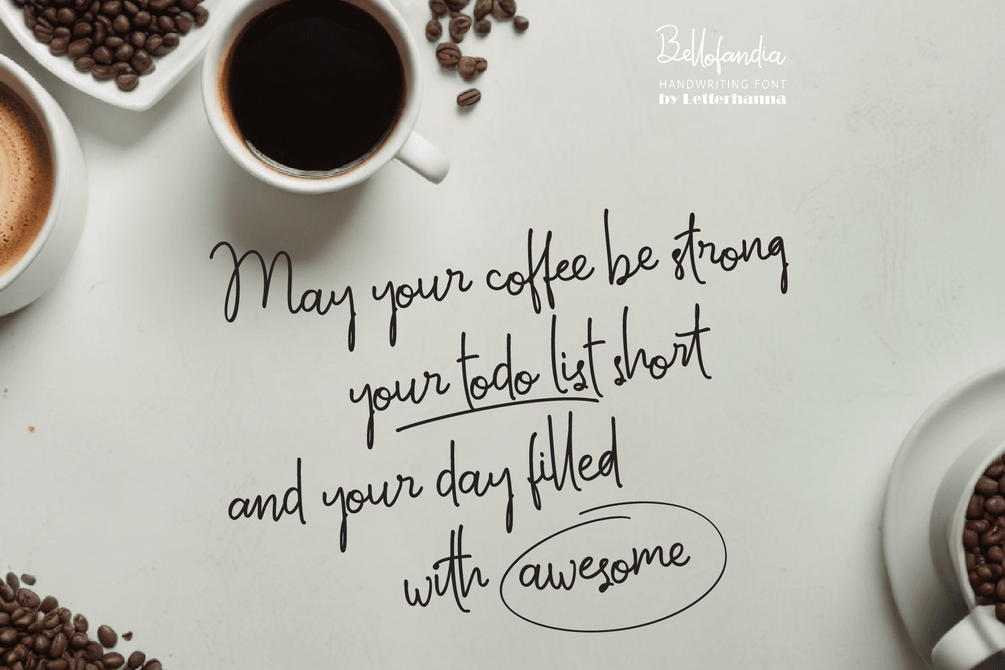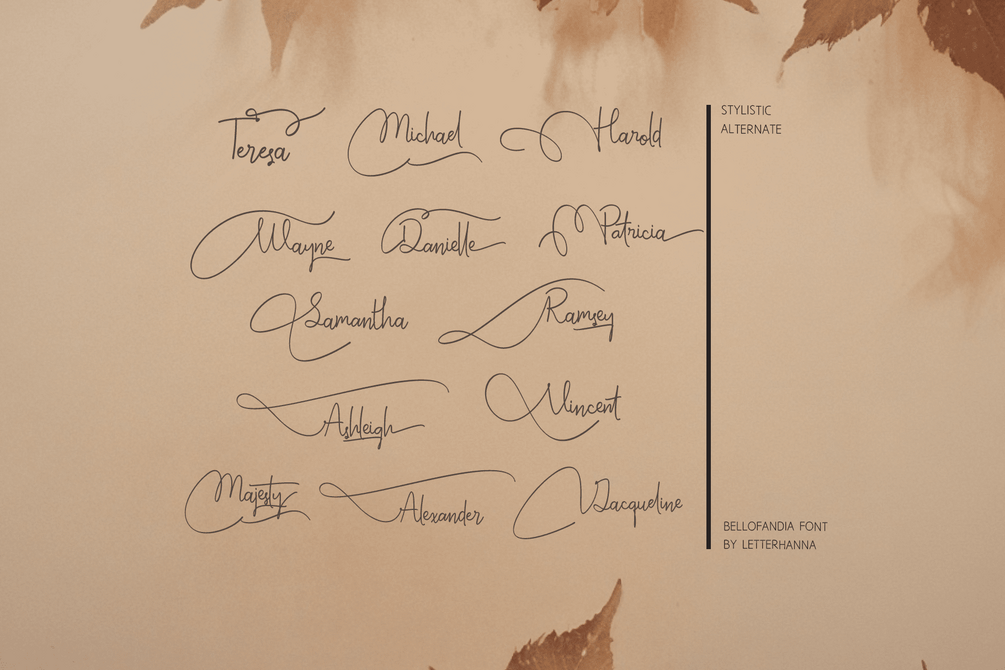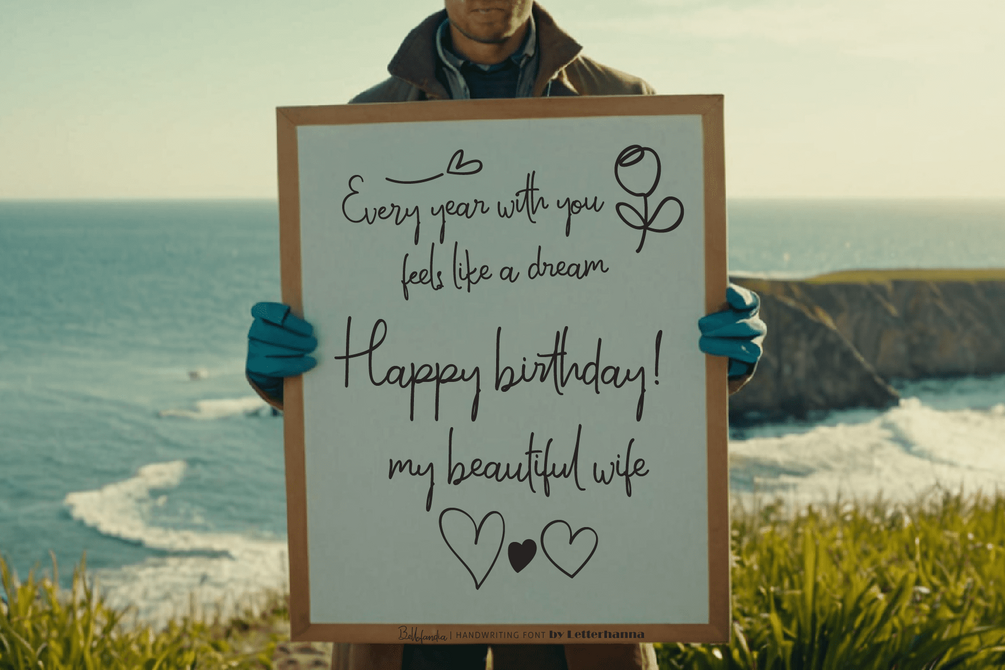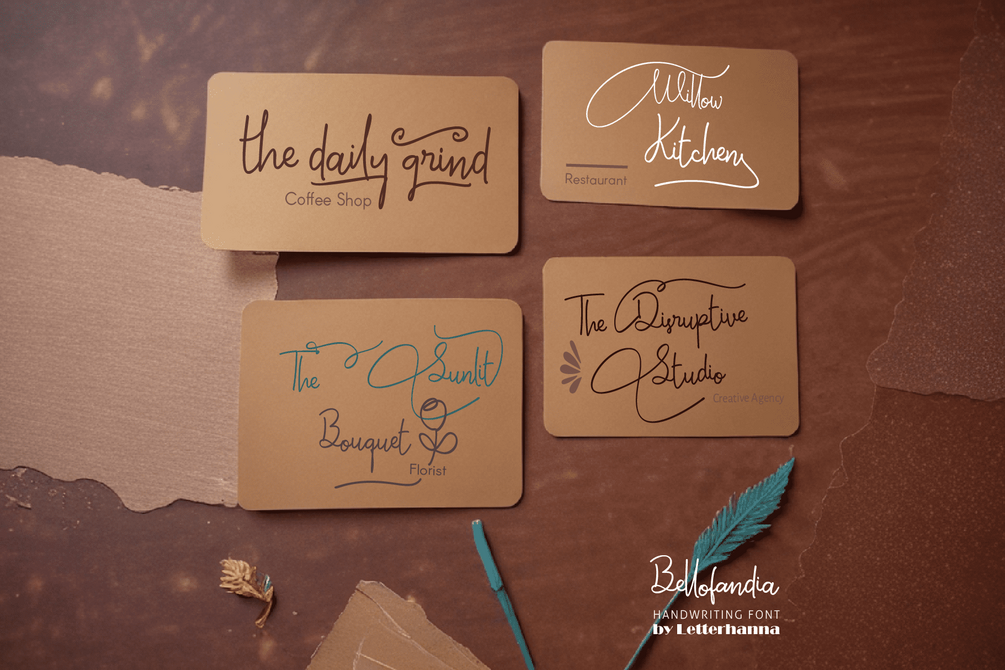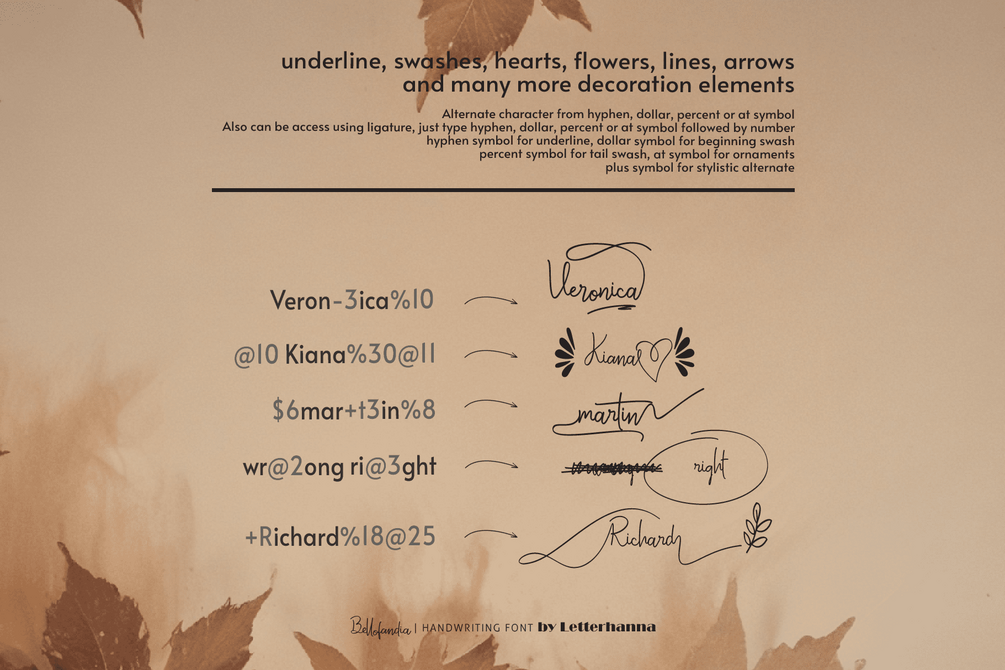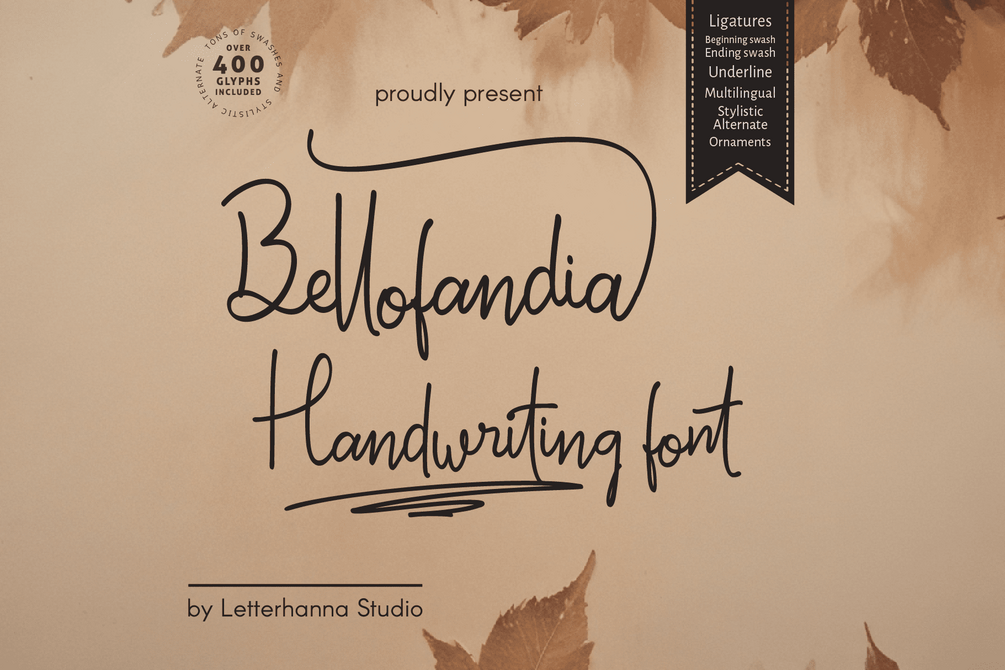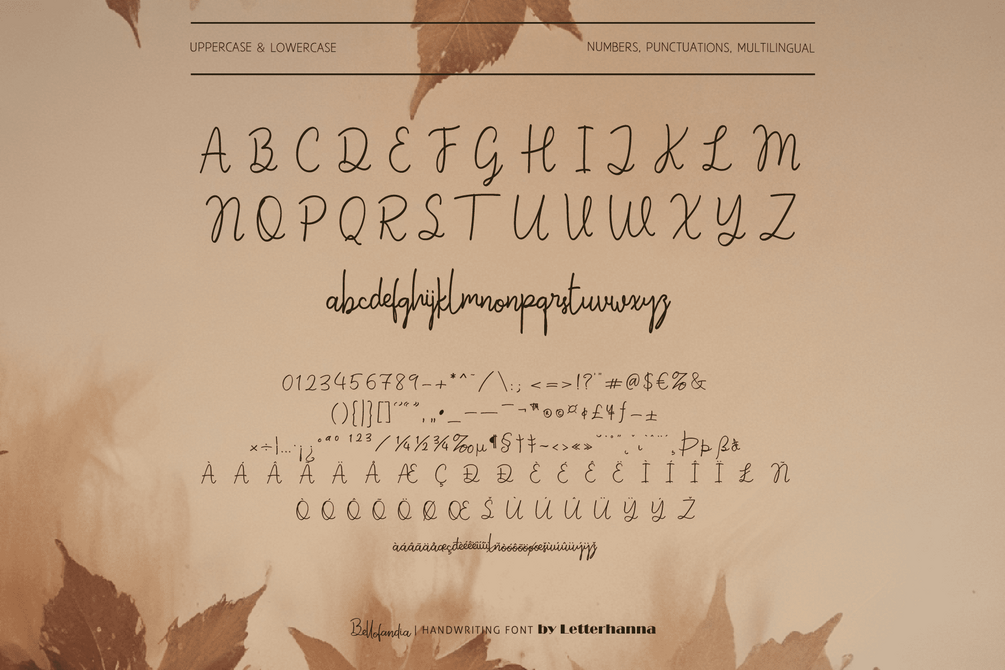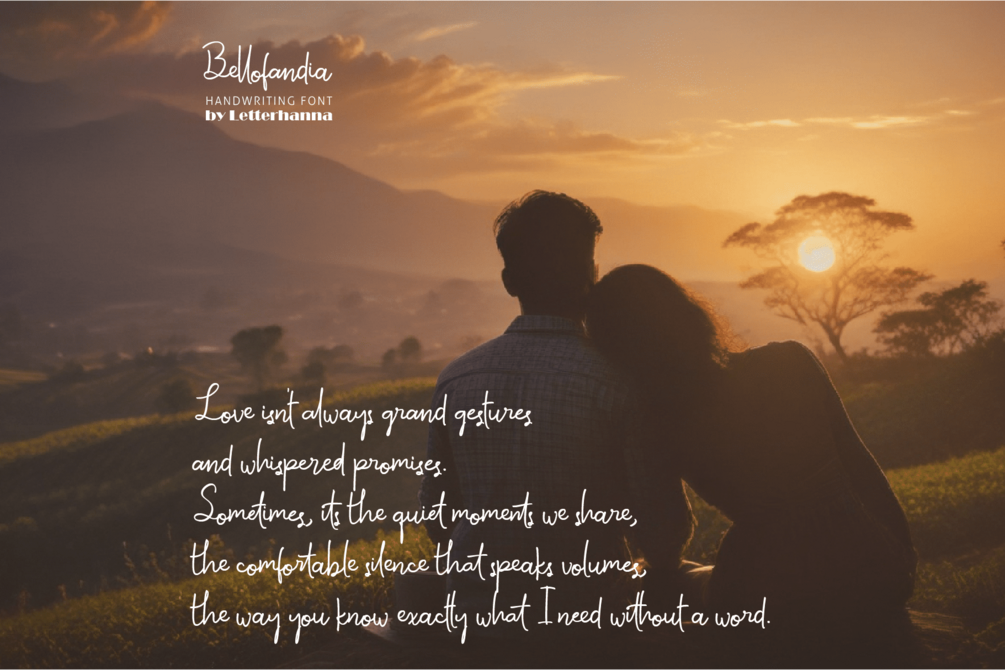
Bellofandia Font
Unleash your inner storyteller with Bellofandia, a captivating new handwriting script font. Inspired by the elegance of calligraphy and infused with a touch of whimsical charm, Bellofandia dances across your designs with effortless grace.
Crafted for handwritten notes, wedding invitations, and creative projects that demand a touch of personality, Bellofandia's flowing lines and playful flourishes add a touch of magic to your words. Let your creativity bloom and compose narratives that capture the imagination with Bellofandia.
Accessing Stylistic Alternates
Stylistic alternates can be accessed by typing a plus symbol "+" in front of the original letter. For example, type "+a" to get the stylistic alternate of the letter a.
• Uppercase and lowercase letters
• Numbers and punctuation marks
• Multilingual support
• Ligatures
• Beginning and ending swashes
• Underline swashes
• Stylistic alternates
• Ornaments
• Easy access to swashes using ligatures